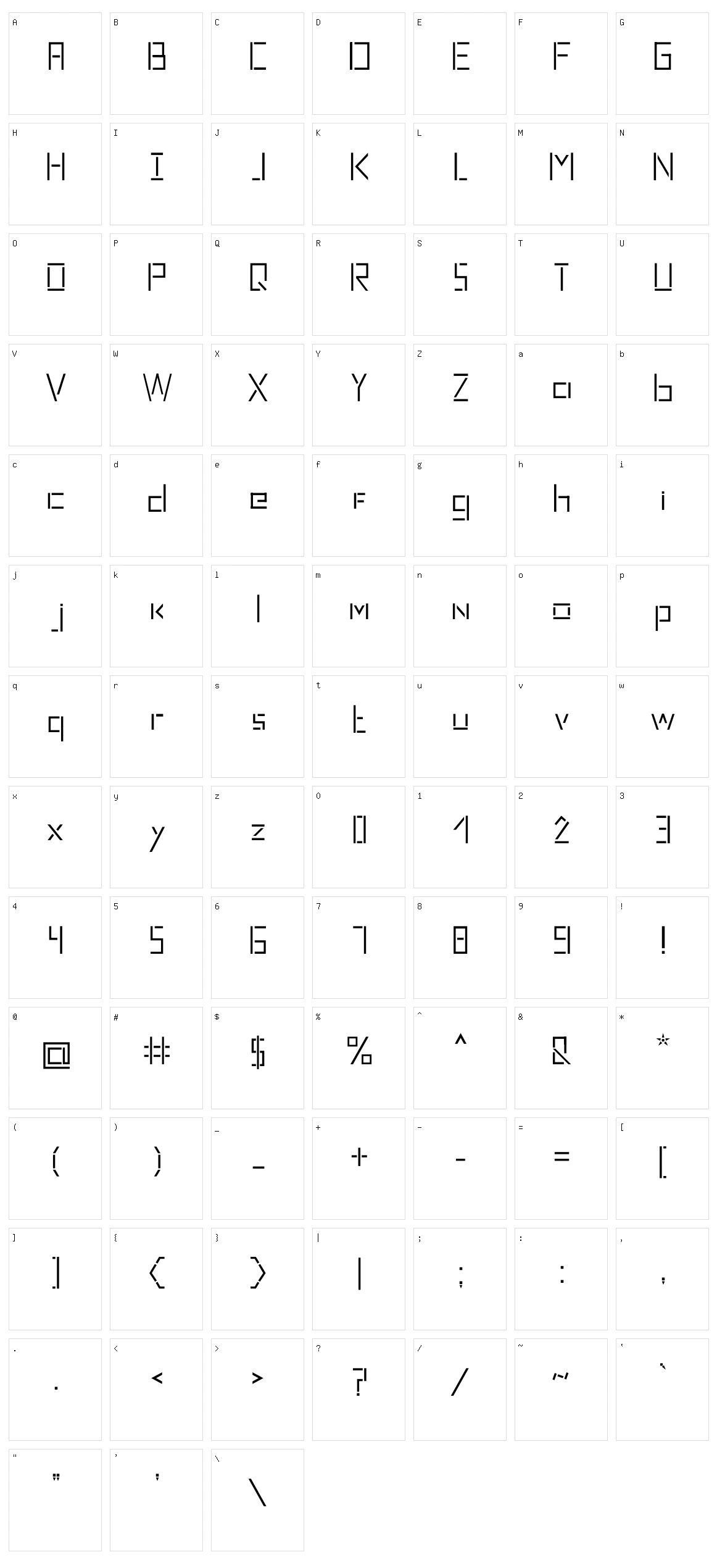
The free font Sharp Cardinal is carefully designed by Peter Mishev, showcasing a thoughtful balance of creativity and usability and falls under the Square font style. When you download the ZIP file, it contains only 4.8 KB of font files, making it lightweight and quick to download. Please review the license details below to understand permitted usage and distribution rights. If license information is not available, we recommend using this font for personal projects only or contacting the author directly for commercial usage permissions.